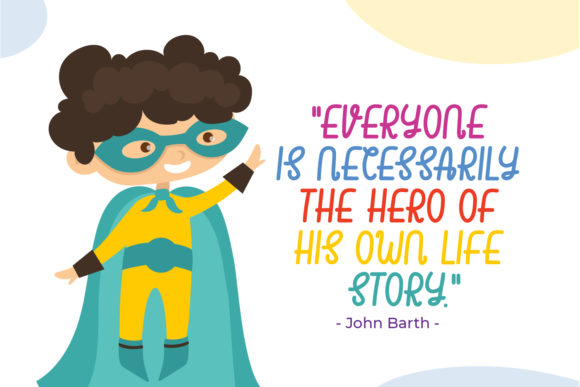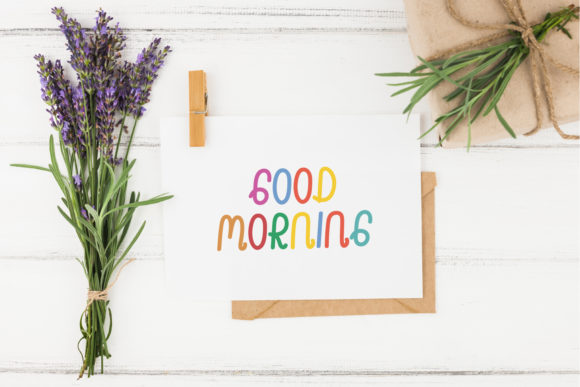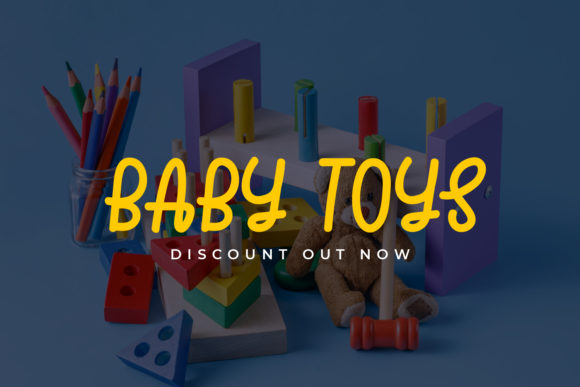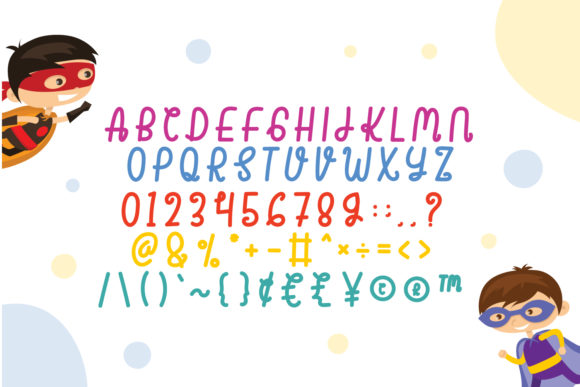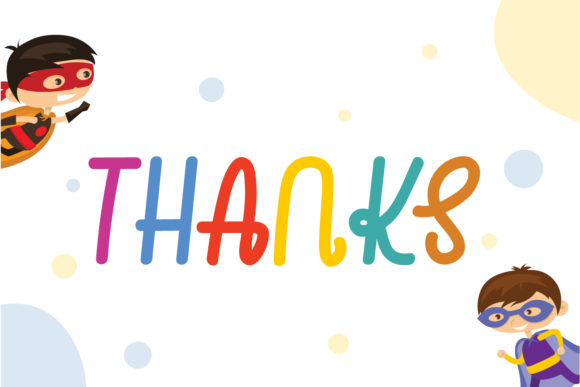
Introducing Become Heroes Font: The Quirky Display Font to Brighten Up Your Designs
Are you tired of using the same old fonts in your designs? Look no further! Become Heroes Font is here to add a joyful touch to your creations. This adorable quirky display font is perfect for designers and crafters who want to infuse their work with a playful and whimsical feel.
The Playful Style of Become Heroes Font
Become Heroes Font boasts a unique and playful style that is sure to capture the attention of your audience. Its quirky design makes it perfect for creating beautiful stationary art, eye-catching social media posts, and much more. The font’s adorable and fun design will add a touch of personality to your designs, setting them apart from the rest.
What Makes Become Heroes Font So Special?
- Unique and Quirky Design: Become Heroes Font features a one-of-a-kind design that will add a touch of whimsy to your designs.
- Playful Style: The font’s playful style makes it perfect for creating fun and engaging designs.
- Versatile: Become Heroes Font can be used for a wide range of design projects, from stationary art to social media posts.
- Easy to Read: Despite its quirky design, Become Heroes Font is easy to read, making it perfect for use in a variety of contexts.
How to Use Become Heroes Font in Your Designs
Become Heroes Font is incredibly versatile and can be used in a wide range of design projects. Here are a few ideas to get you started:
- Stationary Art: Use Become Heroes Font to create beautiful and unique stationary art, such as greeting cards, invitations, and more.
- Social Media Posts: Add a touch of personality to your social media posts with Become Heroes Font. It’s perfect for creating eye-catching graphics and quotes.
- Branding and Packaging: Use Become Heroes Font to add a playful touch to your branding and packaging designs.
- Web Design: Become Heroes Font can be used in web design to create fun and engaging headings and titles.
Tips for Getting the Most Out of Become Heroes Font
Here are a few tips for getting the most out of Become Heroes Font:
- Pair with Other Fonts: Become Heroes Font pairs well with other fonts, so don’t be afraid to try pairing it with a serif or sans-serif font.
- Use it Sparingly: While Become Heroes Font is playful and fun, it can be overwhelming if used too much. Use it sparingly to add a touch of personality to your design.
Become Heroes Font is a unique and playful display font that is sure to add a joyful touch to your designs. Its quirky design and playful style make it perfect for creating beautiful stationary art, eye-catching social media posts, and much more. With its versatility and ease of use, Become Heroes Font is a must-have for designers and crafters looking to add a touch of personality to their work.